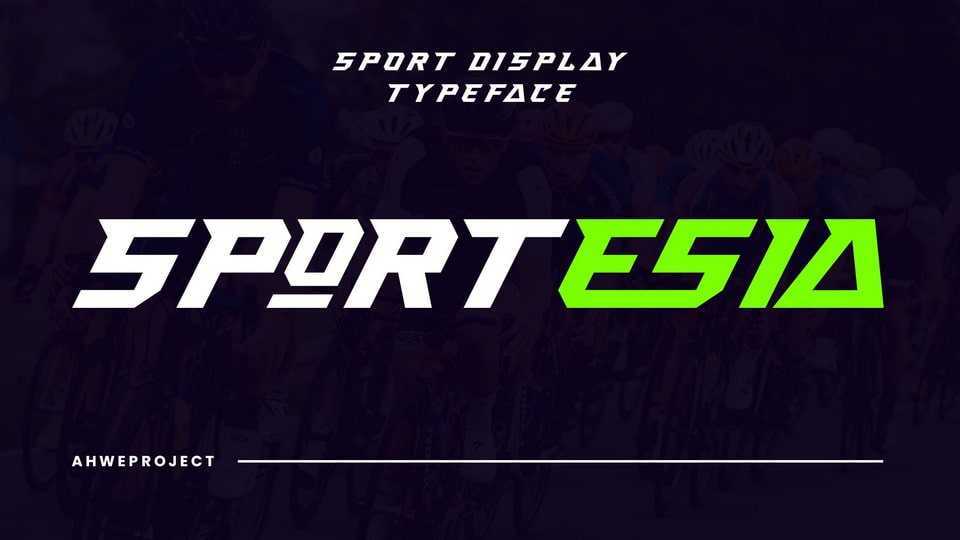
Download Sportesia font, a modern and techno-looking display typeface. It is the perfect font for any sport or racing-themed projects, such as logos, posters, games, product designs, and much more.